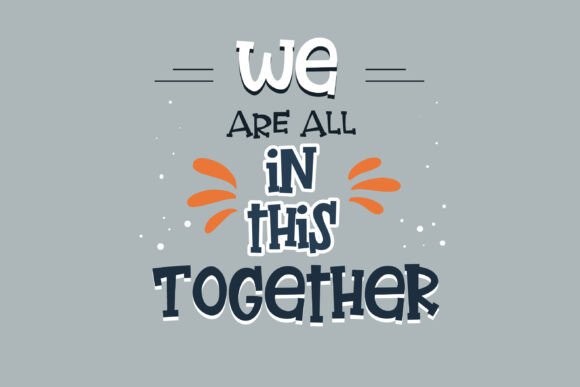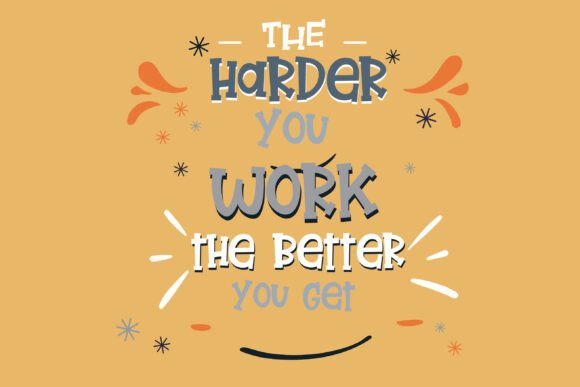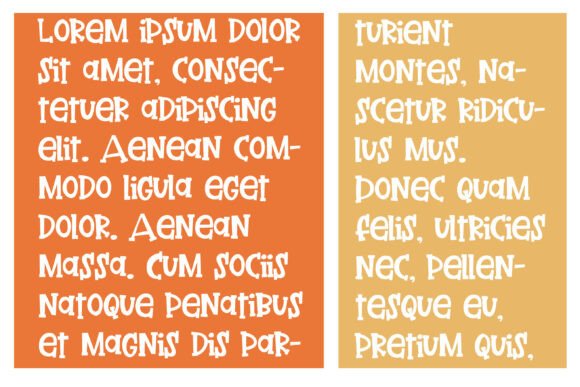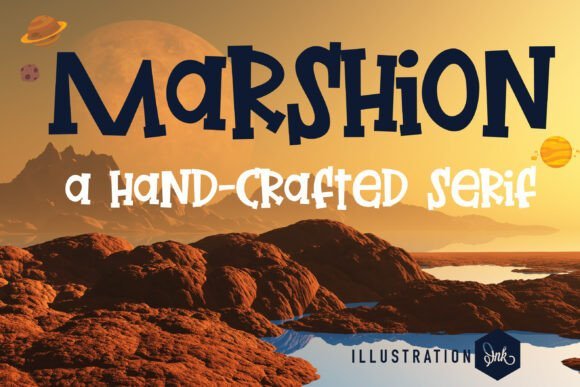
Introduction to Marshion Font
This hand-crafted font is a whimsical print with hand-crafted slab serifs throughout.
A hand-crafted font is a font that is designed to look like it was written by hand It is often used for invitations, greeting cards, and other items.
Key Features of Marshion Font
Why Choose Marshion Font?
Marshion Font offers exceptional quality and versatility, making it a valuable addition to your design toolkit. Whether you’re creating for personal projects or commercial use, Marshion Font delivers professional results.